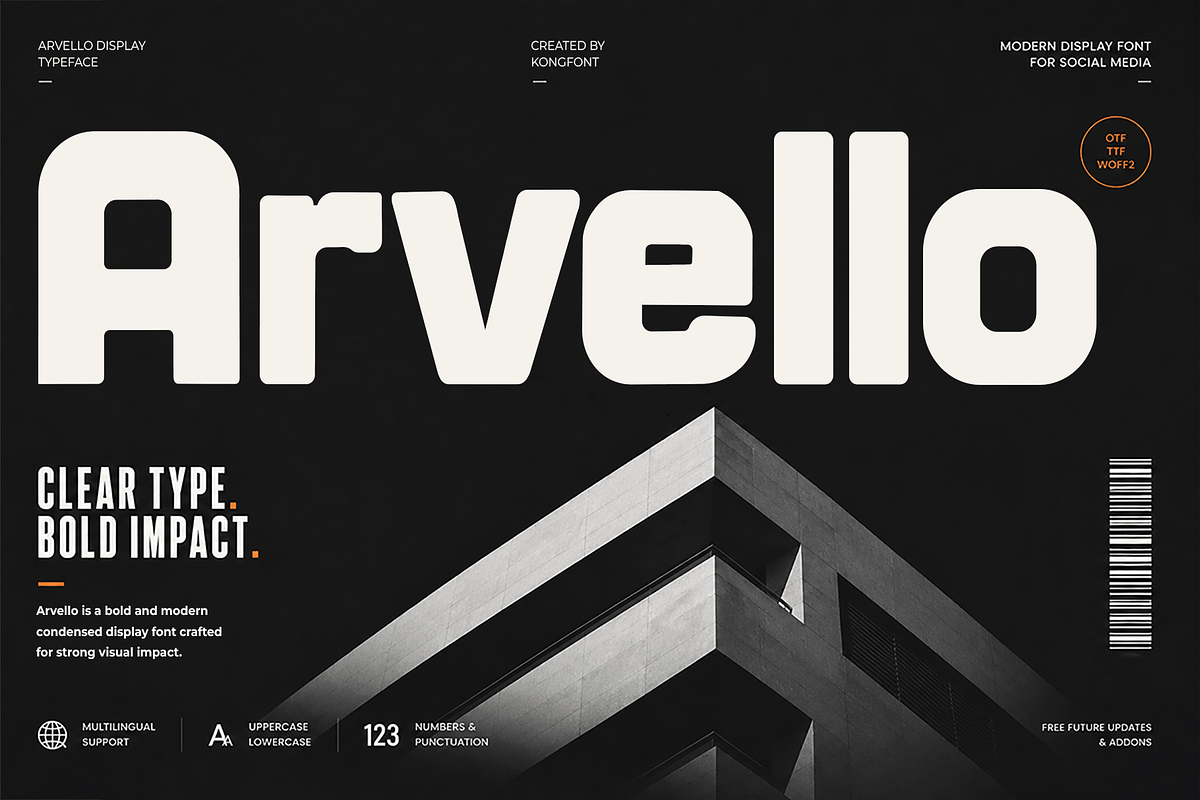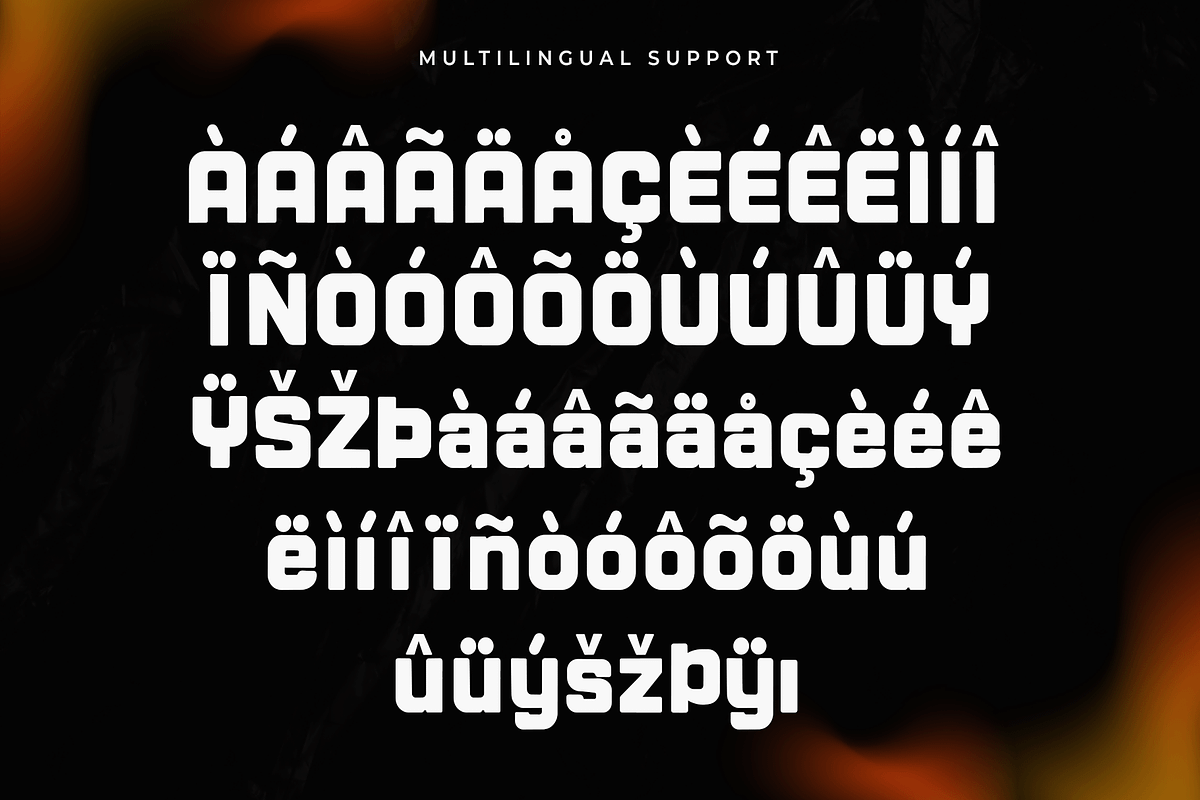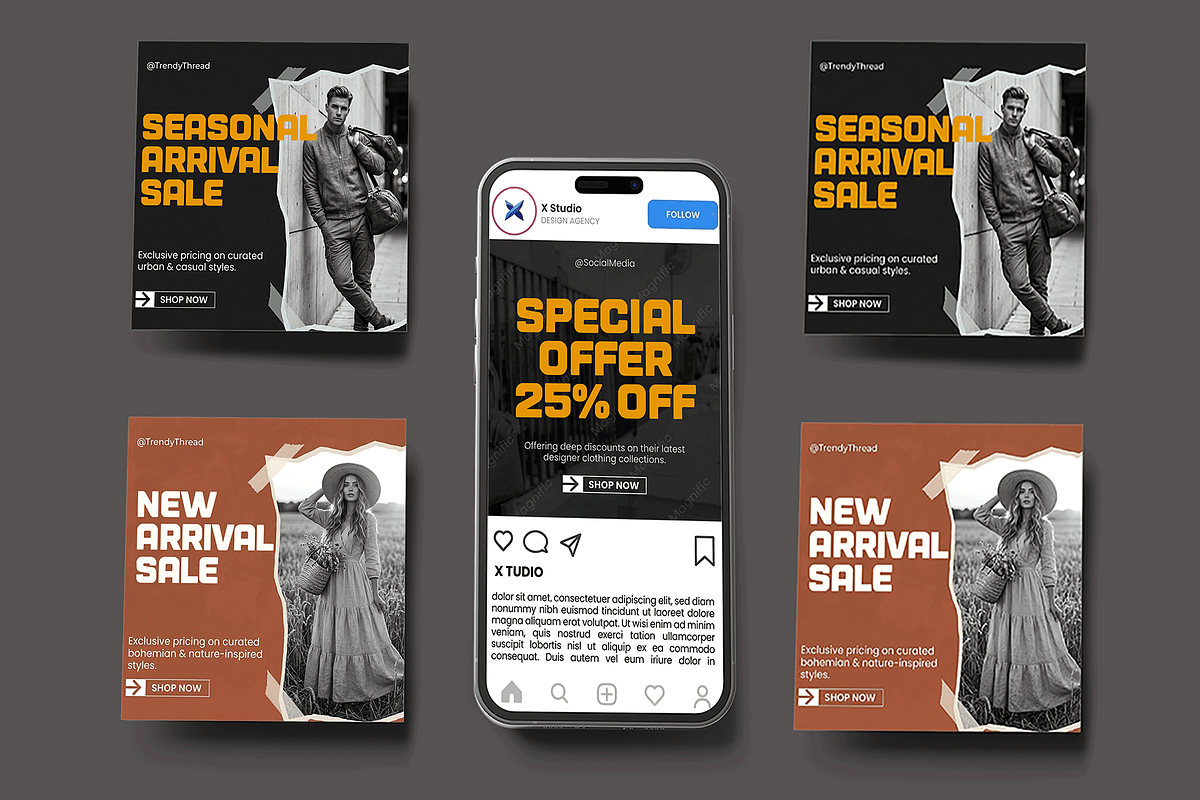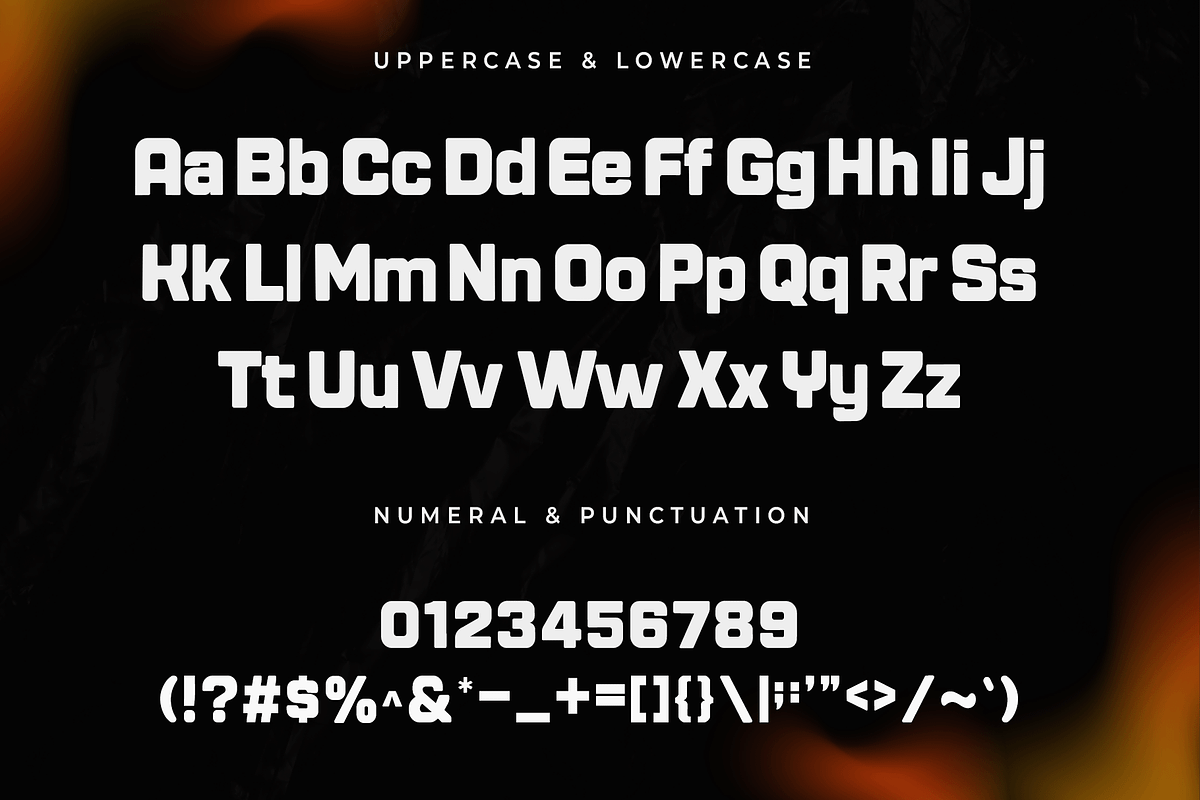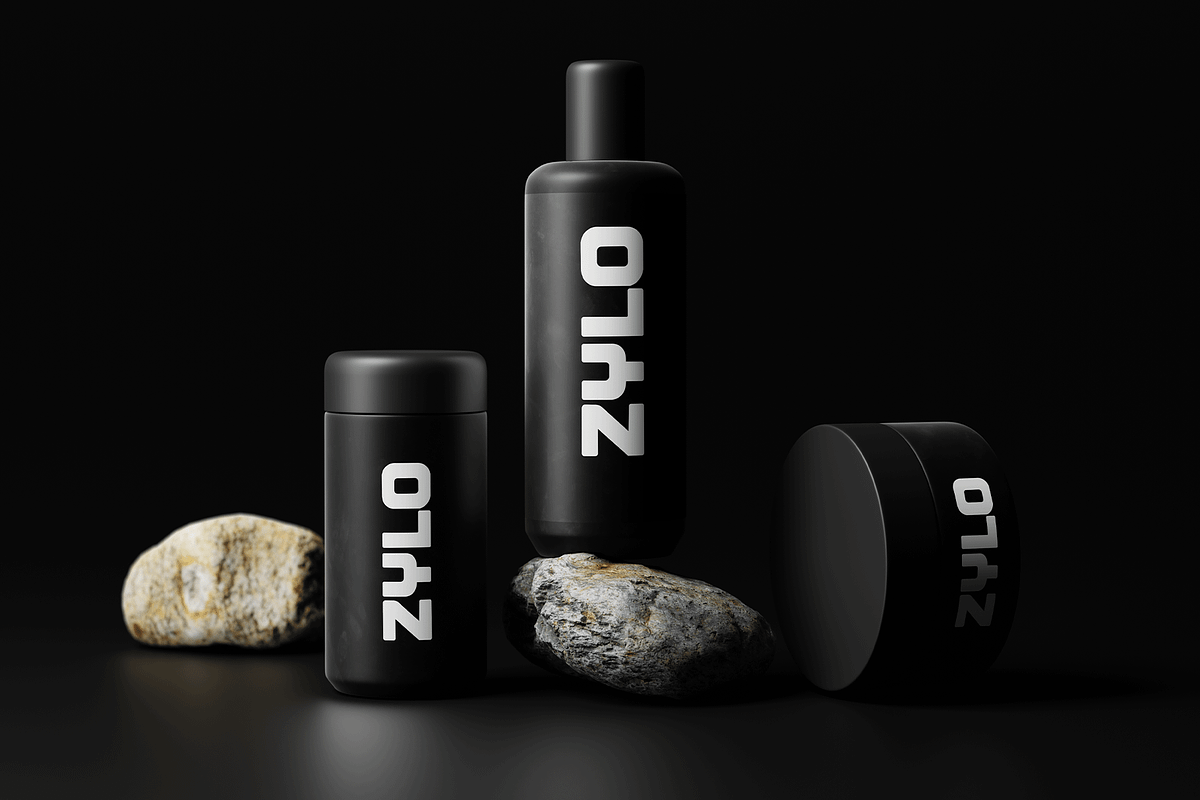
Arvello – Modern Display Font
Arvello is a modern display font designed to create eye catching typography with a sleek contemporary feel. Featuring bold letterforms, stylish proportions, and clean structure, Arvello delivers a strong visual presence that works beautifully across creative and branding projects.
Bring confidence and modern flair to your typography with Arvello a display font made for impactful and stylish design.